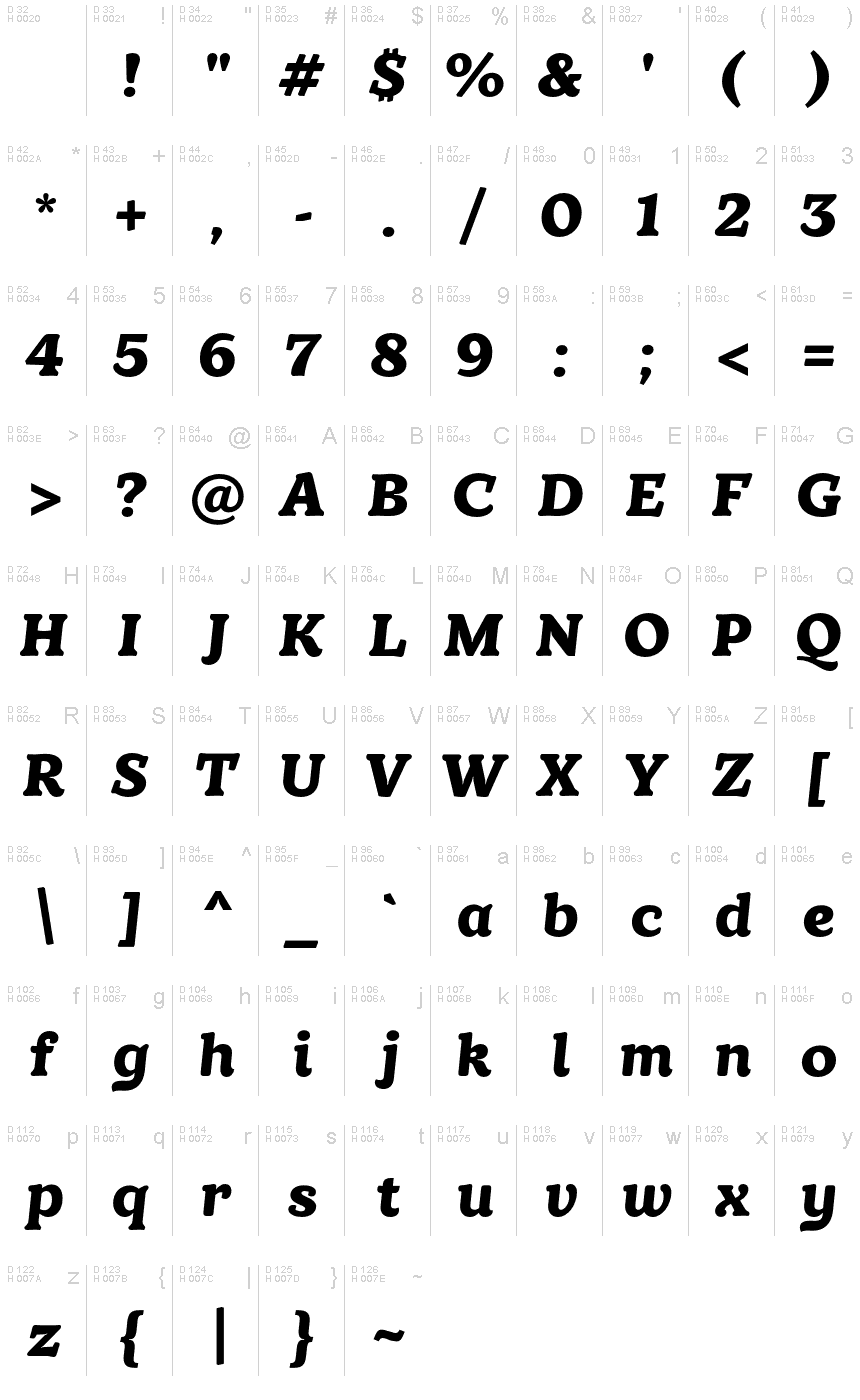
TT Phobos Trial ExtraBold Italic
TT Phobos ExtraBold Italic is the perfect retro serif font for projects that require a bold and dramatic touch. Its extra-bold weight and italic style make it ideal for designs that need to stand out, such as vintage posters, logos, and headlines. Created by TypeType Foundry, this font family is inspired by space exploration and futuristic themes. Its elegant curves and sharp edges create a unique contrast that adds depth to any design. Whether you're working on a sci-fi movie poster or a sophisticated branding project, TT Phobos ExtraBold Italic will elevate your design to the next level with its striking presence.